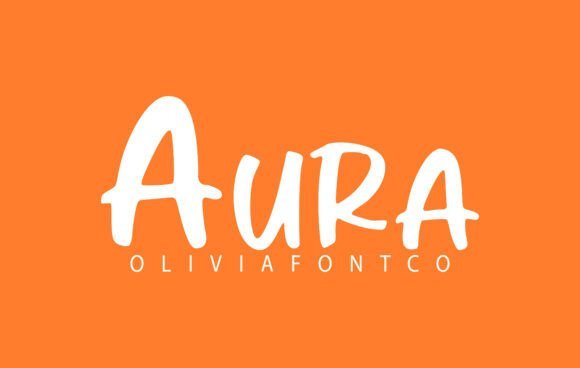
The Perfect Script: Elevating Your Creative Game with Aura Font
Have you ever stared at a blank canvas, waiting for the perfect idea to strike? For creatives, those moments of pure inspiration can be the most thrilling – and the most daunting. But what happens when you finally find the perfect font to bring your vision to life? Enter the enchanting Aura Font, expertly crafted to transport your audience to a world of romance and elegance.
Aura Font is more than just a beautiful handwritten script – it’s a trusted companion for designers seeking to elevate their creative output. With its legibility and versatility, this font is a favorite among designers for crafting magazine headlines, social media posts, branding materials, and even wedding invitations. Whether you’re a seasoned pro or just starting out, Aura Font is the perfect addition to your toolkit, helping you to create designs that truly leave a lasting impression.
Aura Font Key Features
- Unique Characteristics: Aura Font features a unique blend of modern and traditional elements, with a focus on elegance and sophistication, making it ideal for high-end branding and design projects.
- Kerning and Ligatures: Aura Font includes advanced kerning and ligature features, ensuring that text sets are visually appealing and professional-looking, even at small font sizes.
- Font Weight and Style: Aura Font is available in a range of weights and styles, from light to bold, and includes italic and oblique options, providing designers with a high degree of flexibility and creativity.
Aura Font Review
As a designer, I’ve had the chance to work with Aura Font, and I must say, it’s a unique addition to my font library. Here are some things that work well:
- ✨ Elegant and modern feel: Aura Font’s sleek lines and subtle flair give it a sophisticated look that’s perfect for high-end designs.
- ✨ Versatility: It’s suitable for a wide range of applications, from branding and advertising to digital products and editorials.
- ✨ High-quality glyphs: The font’s extensive character set and well-crafted glyphs make it a joy to work with.
- ⚠️ Limited language support: Aura Font doesn’t cover a wide range of languages, which might be a drawback for designers working with global audiences.
- ⚠️ Some characters feel a bit too stylized: While the font’s flair is a major selling point, it can sometimes make certain characters difficult to read, especially in smaller sizes.
Overall, I’d give Aura Font 4 out of 5 stars. It’s a solid choice for designers looking to add some sophistication to their projects, but it’s not without its limitations. If you’re working on a high-end design that requires a unique, modern look, Aura Font is definitely worth considering. Just be mindful of its language limitations and character clarity.
Tips for Getting the Most Out of Aura Font
Use Aura Font for titles, headings, and emphasis to create a visually appealing design.
Pair Aura Font with other sans-serif fonts for a clean and modern look.
Experiment with different font sizes and colors to create a unique visual identity.
Aura Font is suitable for:
Marketing materials, such as brochures, flyers, and posters.
Business presentations, such as PowerPoint or Keynote decks.
Web design, such as headings and titles on websites.
Alternatives to Aura Font for Designers
Montserrat is a sans-serif font designed for digital use. It’s great for body text and is particularly suitable for modern websites and applications. Montserrat is more geometric than Aura Font and has a more industrial feel.
Lato is a sans-serif font with a friendly and approachable feel. It’s ideal for use in headings and titles and works well in a variety of digital contexts. Lato is more rounded and elegant than Aura Font, making it suitable for designs that require a softer look.